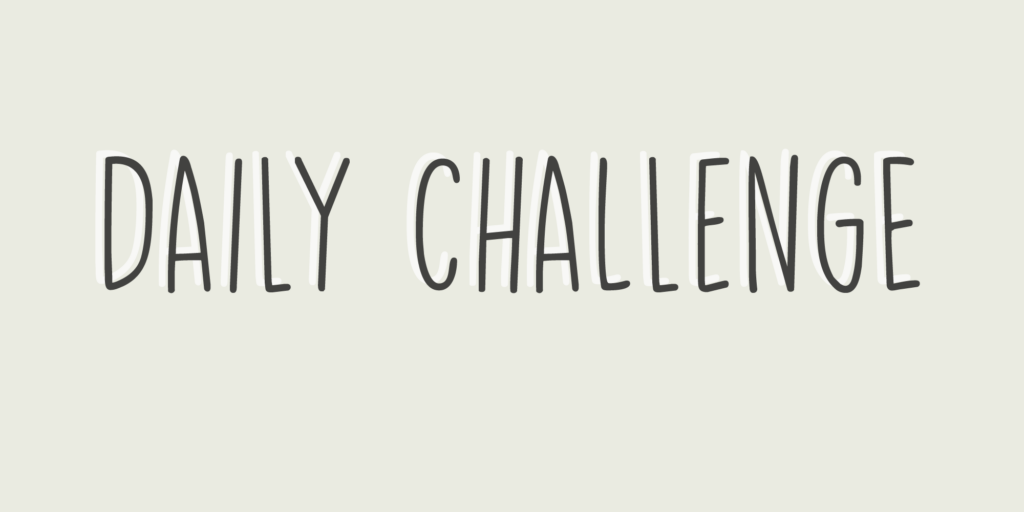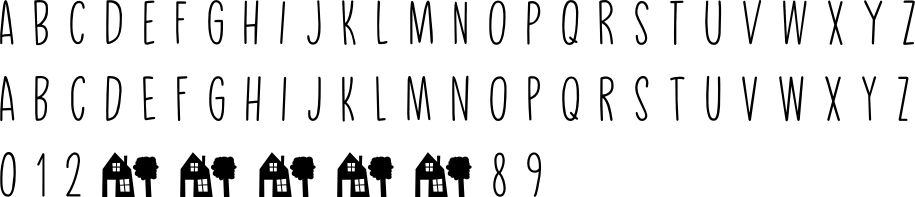
Daily Challenge Font
About the Daily Challenge Font
My daily challenge is how to get my kids out of bed, feed them breakfast, get them to dress, wash and pack their school bags and drop them off at school before the bell rings. The rest of the day, the challenge is to renovate our house, get my work done, pick up the kids from school (plus all of their friends, who want to come and play) and cook dinner.
Of course, the word ‘challenge’ was misused by the internet. Not too long ago, there seemed to be an endless stream of crazy challenges that ended up hurting or even killing a few people.
Daily Challenge font is none of the above: it is a clean cut, 100% handmade, all caps font. The only challenge here is how to adapt your design so it fits this font perfectly… 😉
Daily Challenge Demo- Preview Image
Daily Challenge Font Character Map